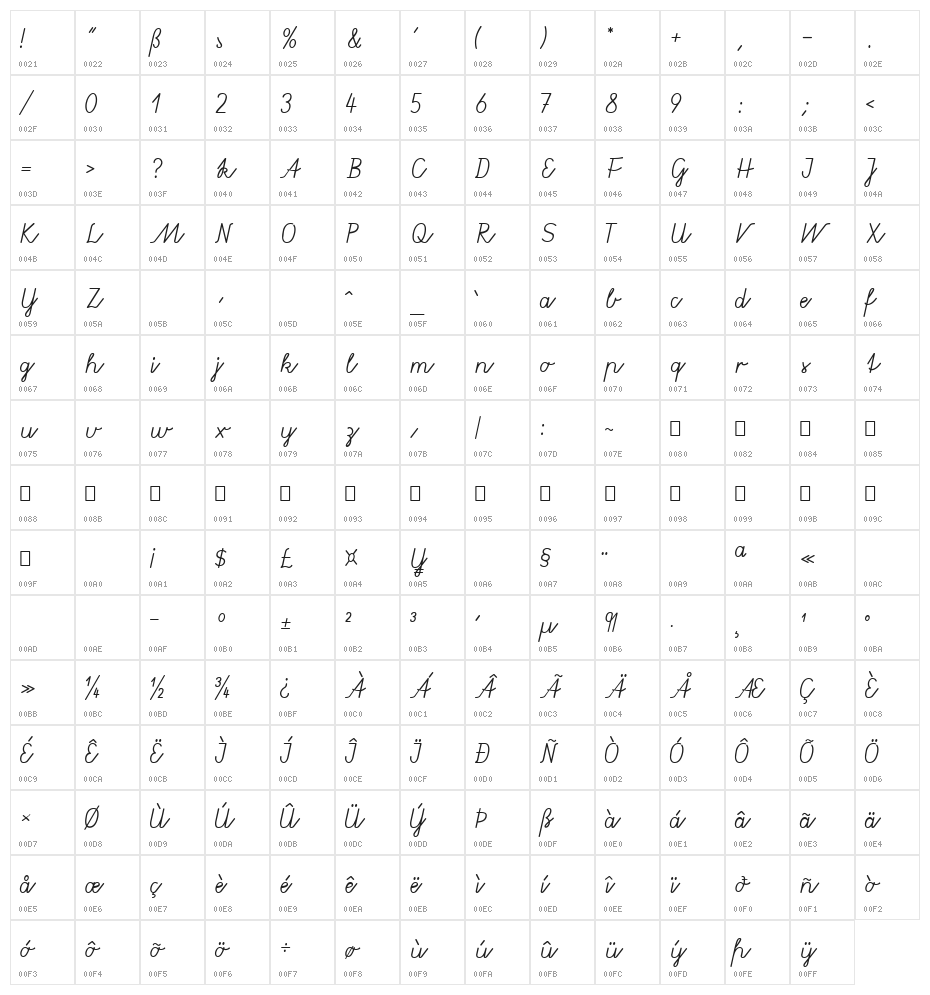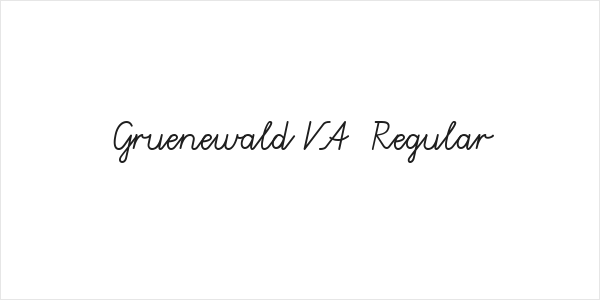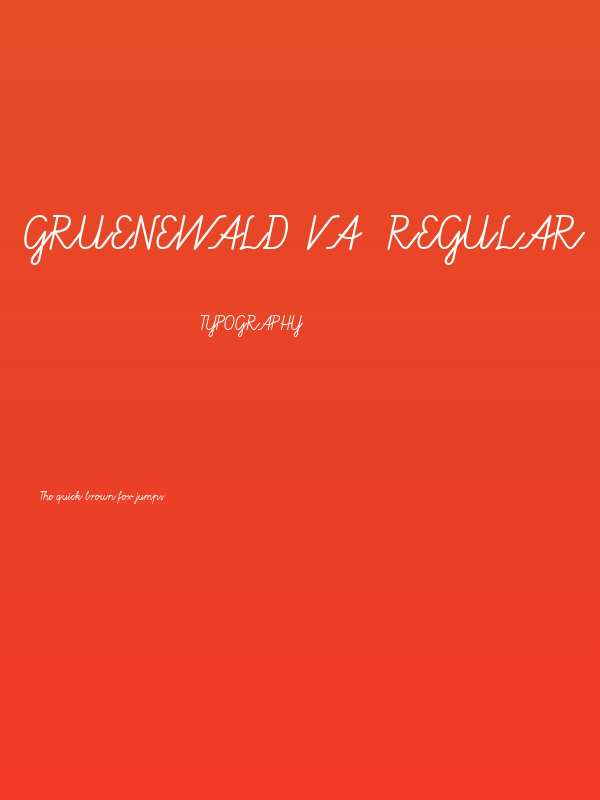
Gruenewald VA Regular Font
Gruenewald VA Regular Description
This font features a flowing, cursive style with a handwritten appearance. The characters are elegantly connected, giving it a fluid and natural look. The uppercase letters are slightly more structured, while the lowercase letters maintain a consistent slant, enhancing the script-like quality. The numerals and special characters are designed to match the overall aesthetic, ensuring a cohesive appearance across all text. The strokes are smooth and continuous, creating a sense of movement and grace. This font is ideal for projects that require a personal touch or an elegant, informal style.
| Overall Style | Elegant, Handwritten |
| Proposed Projects | Ideal for wedding invitations, greeting cards, personal branding, and decorative quotes. |